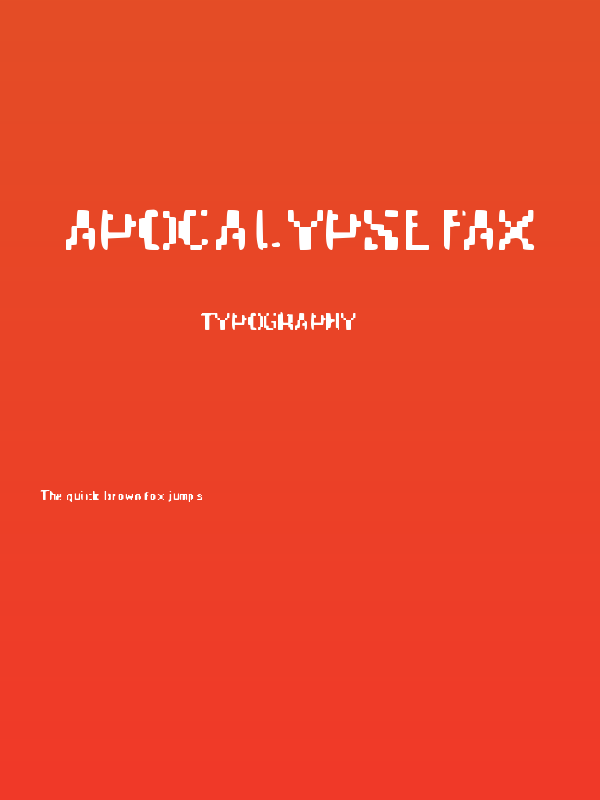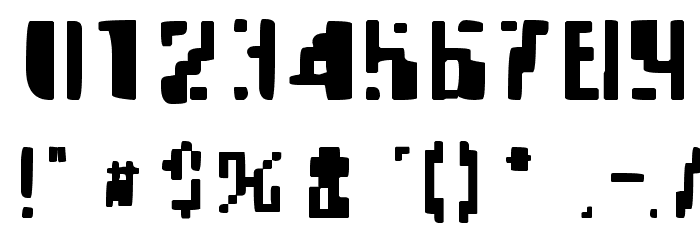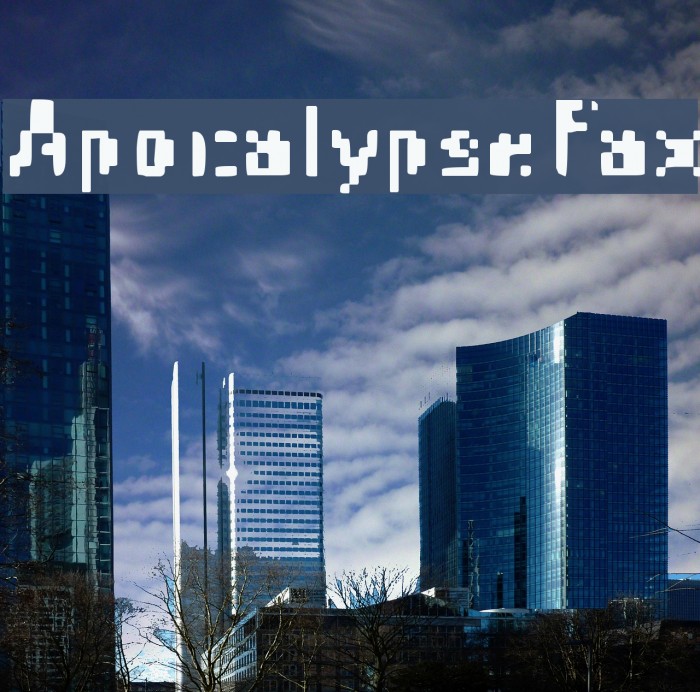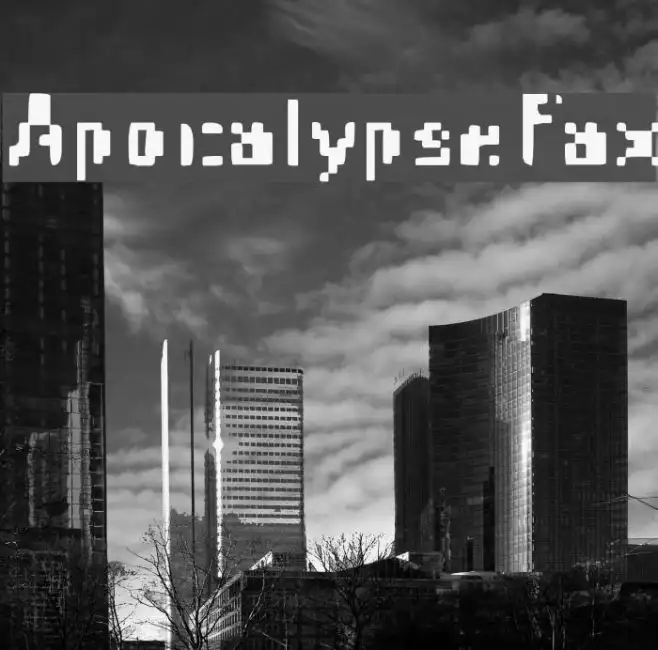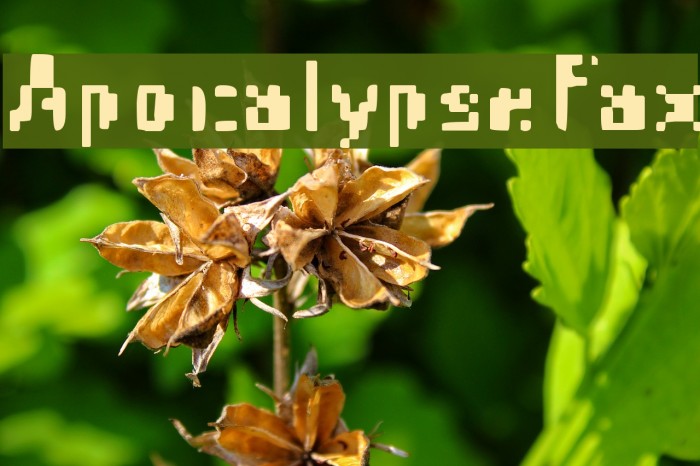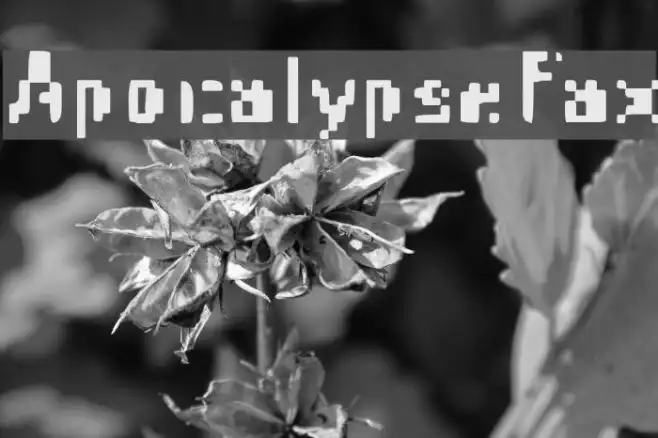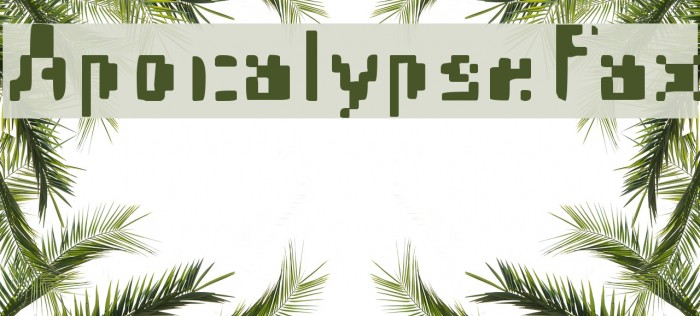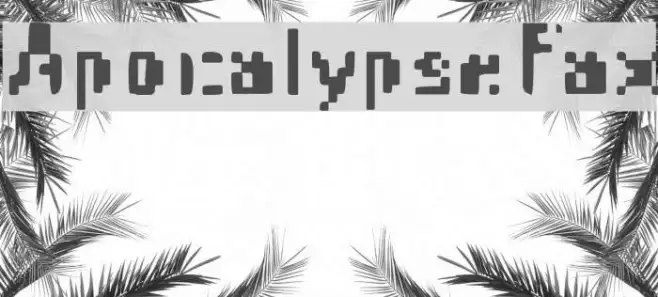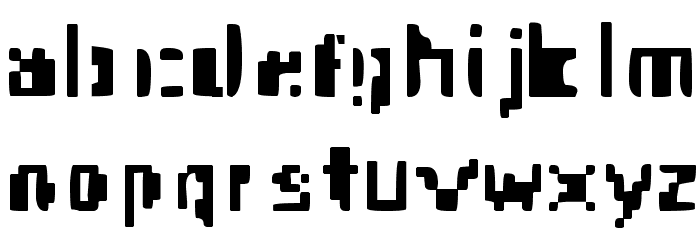
ApocalypseFax Font
ApocalypseFax Description
This font features a bold and rugged design, characterized by its irregular and fragmented letterforms. Each character appears as if it has been eroded or distressed, giving it a unique, edgy appearance. The uppercase and lowercase letters share a consistent style, with jagged edges and varying stroke widths that create a sense of movement and chaos. Numbers and special characters follow the same aesthetic, ensuring a cohesive look across all glyphs. The font's distinct style makes it stand out, ideal for projects that require a strong visual impact.
| Proposed Projects | Ideal for posters, album covers, video game graphics, or any project needing a gritty, apocalyptic vibe. |